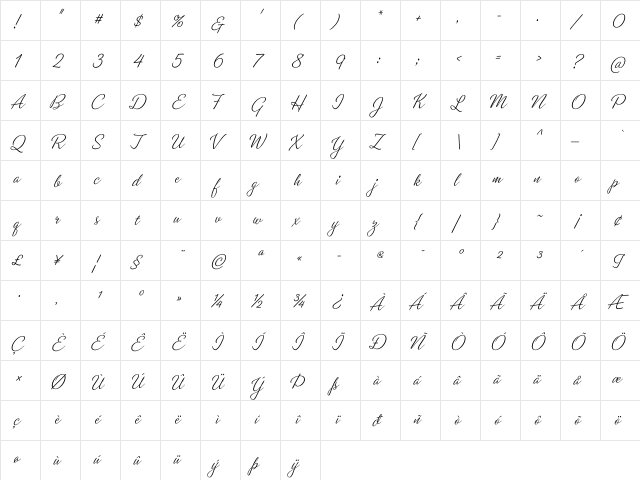
House Holiday Script
| Style | Script |
| Foundry | House Industries |
| Designer | Ken Barber |
Design Context for House Holiday Typeface
House Holiday flows with the natural rhythm of handwritten lettering, making it ideal for designs that call for warmth and personal expression.
Font Pairing: Combine House Holiday with a simple geometric sans for maximum contrast — the tension between flowing curves and clean structure is a classic typographic pairing.
Pro Tip: Use House Holiday for short runs of text — names, titles, or taglines. Extended body copy in script faces tires the eye quickly.